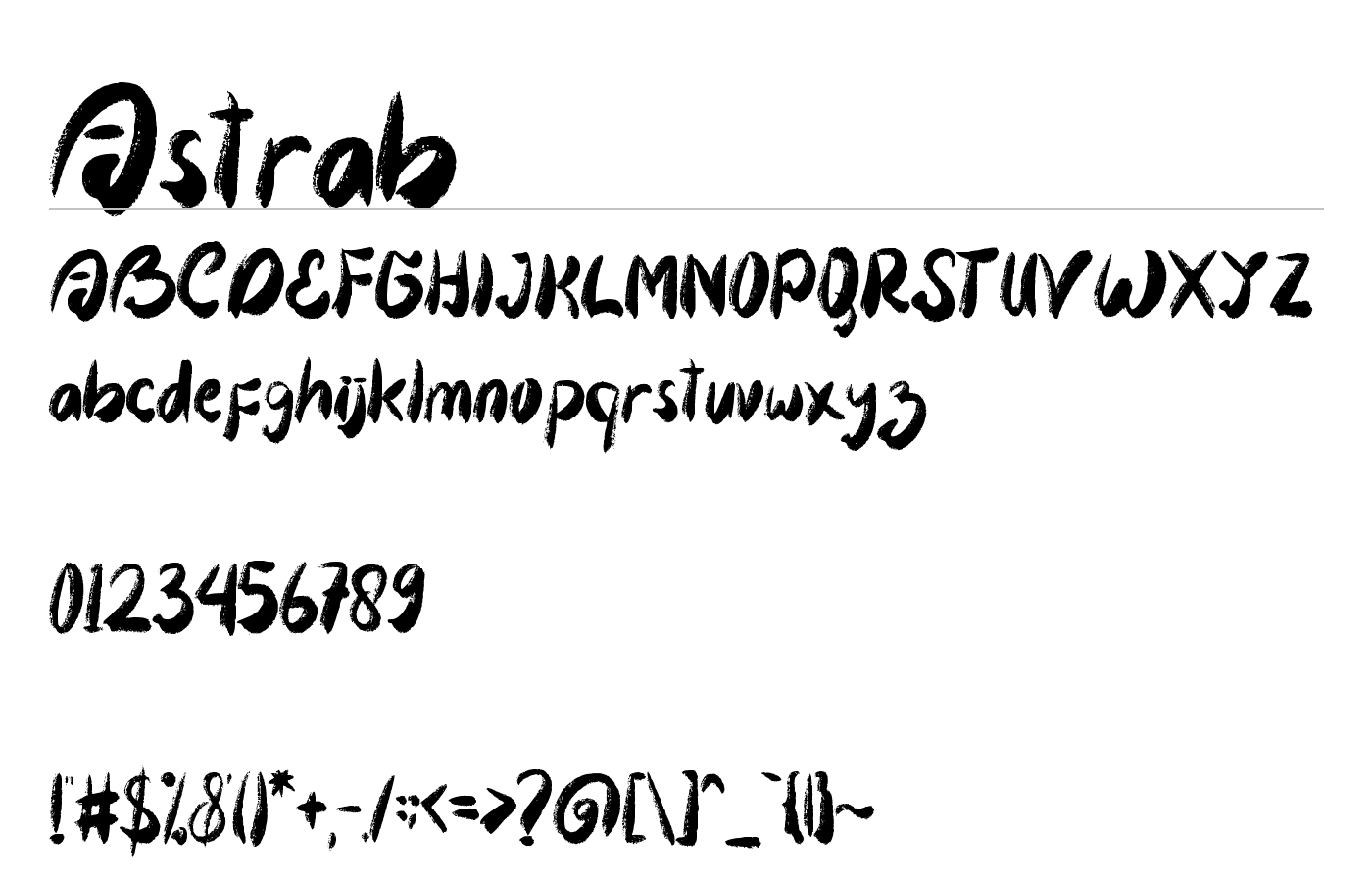
Astrab is a bold, brush-style handwritten font that exudes a lively, artistic vibe with its textured, uneven strokes and dynamic letterforms. Its irregular shapes and organic feel make it ideal for creative projects, informal branding, and eye-catching headlines that seek to convey energy and personality. This font works particularly well where a spontaneous, handcrafted look is desired, such as in posters, packaging, and artistic logos.
Astrab Font
About Astrab Font
| Font family | Astrab Font |
| Designer | Yoga Letter 2023 (Isroni Yoga Prasetya) |